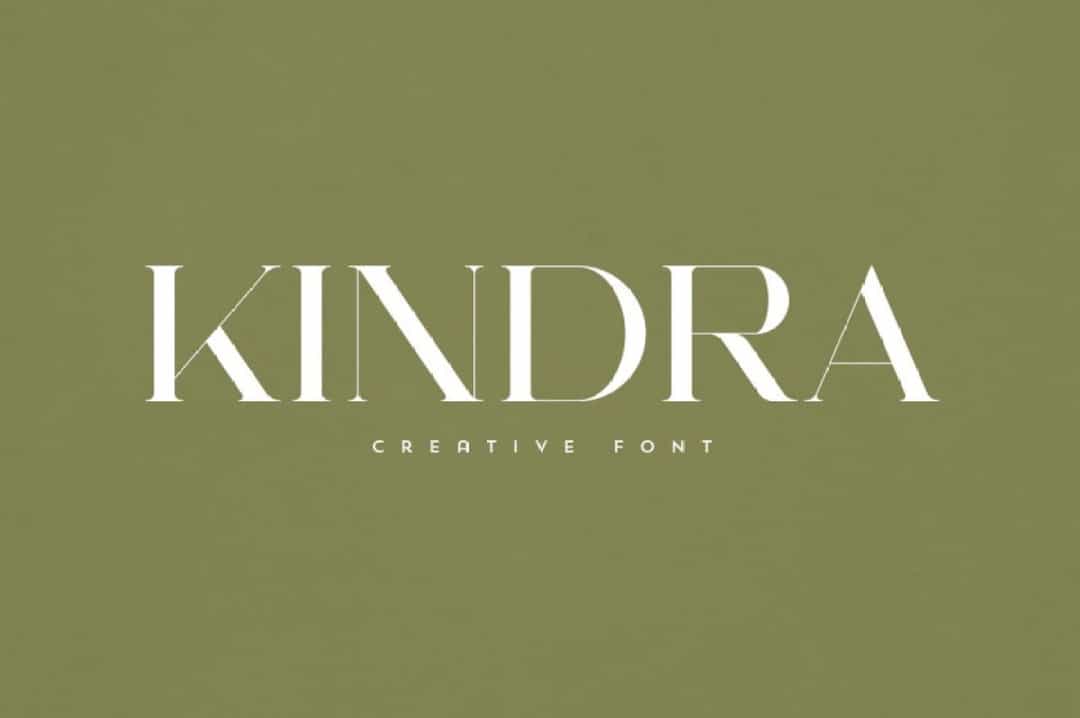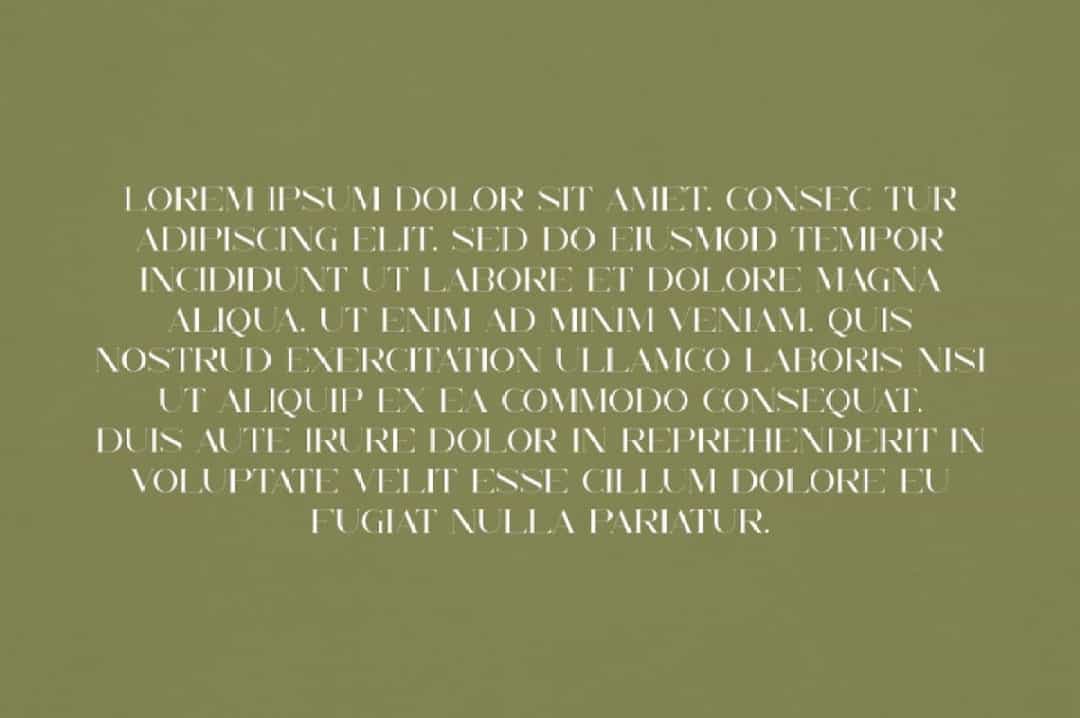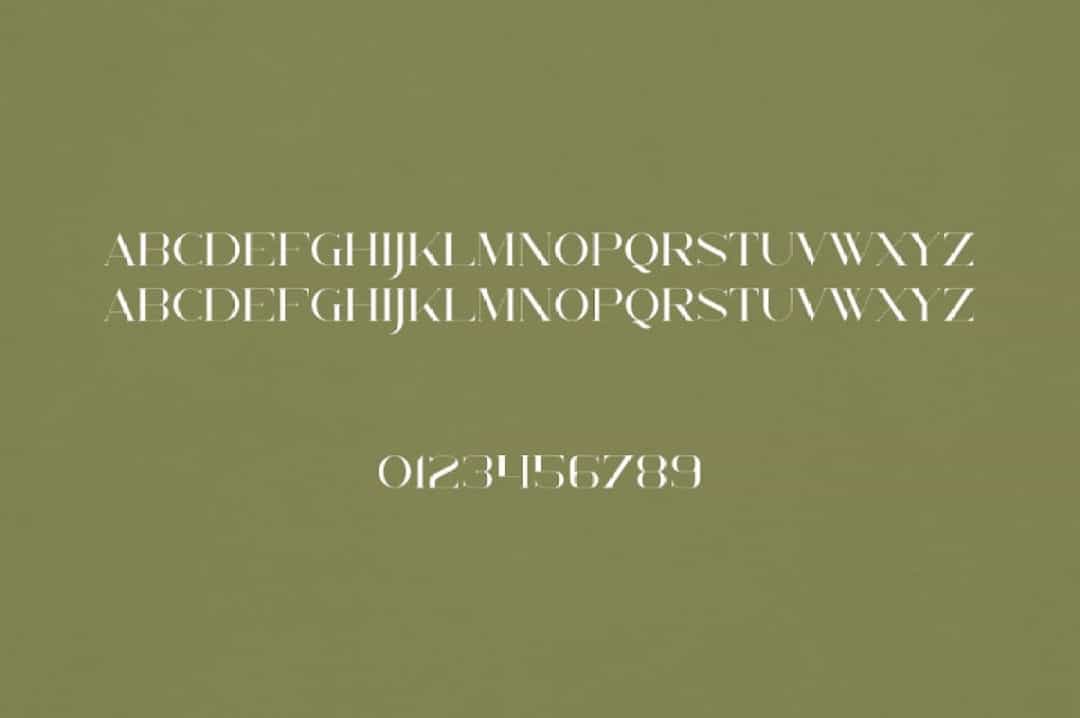
Kindra is an elegant and flexible serif typeface that brings your typography alive! Use it for anything from logos and headlines, branding or even simple text! Kindra works beautifully on product packaging designs or magazine headers but can also make an elegant text overlay in every background picture!